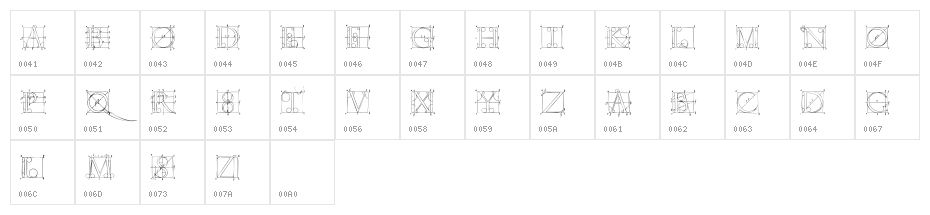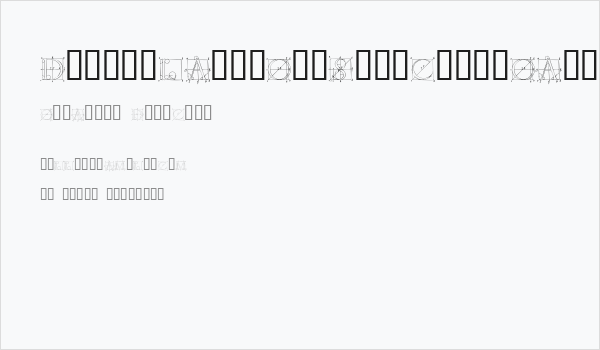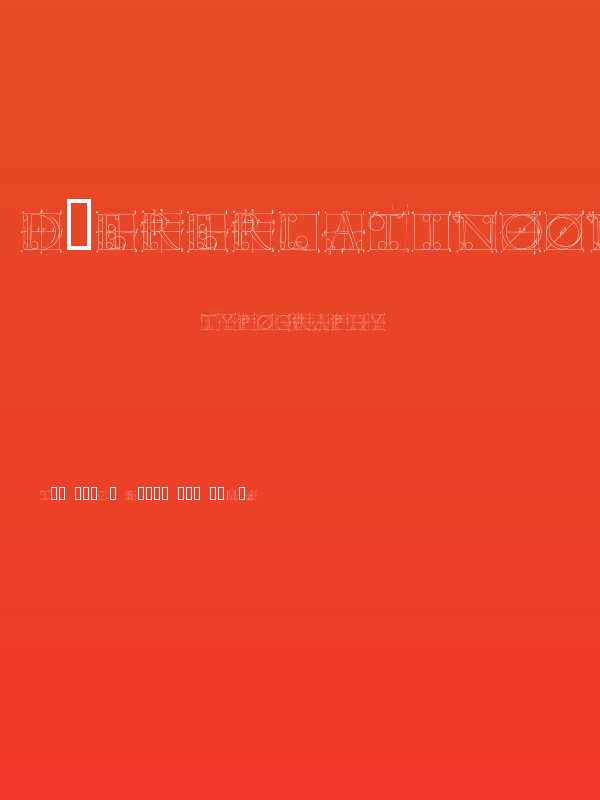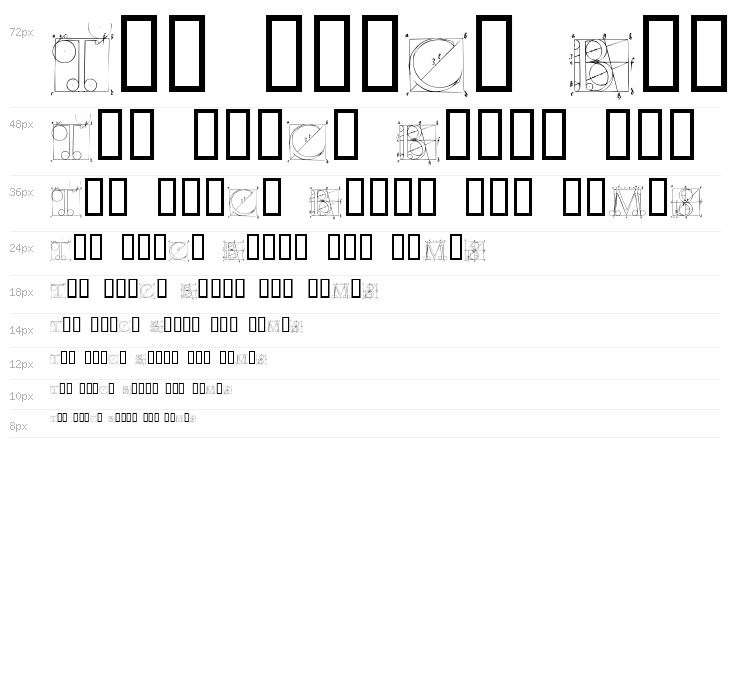
DuererLatinConstructionCapitals Font
This font is a detailed construction of Latin capital letters, showcasing a geometric and precise design. Each letter is meticulously crafted with clear guidelines and measurements, reflecting a classical approach to typography. The characters are constructed with a focus on symmetry and proportion, reminiscent of Renaissance architectural principles. The use of circles and lines in the design process highlights the mathematical precision involved in creating each letterform. This font is ideal for projects that require a historical or scholarly aesthetic, as it embodies the elegance and sophistication of classical typography.
Overall StyleClassic
Proposed ProjectsIdeal for historical documents, educational materials, architectural presentations, and classical-themed designs.